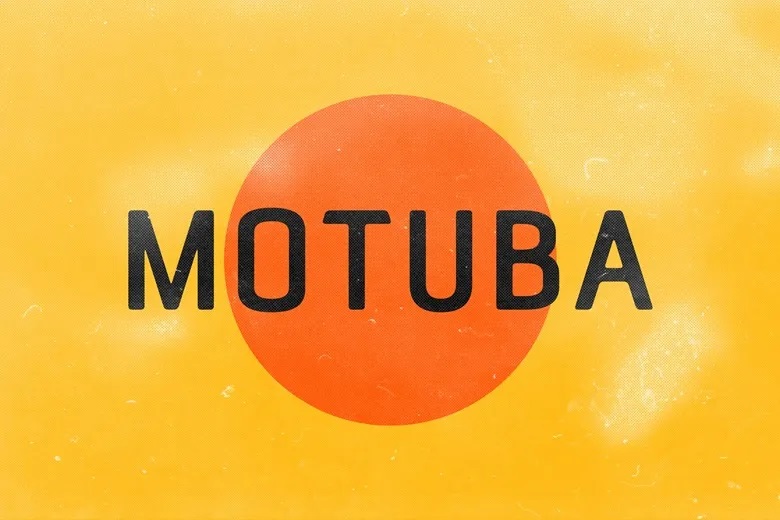
Motuba Font
Motuba is an elegant, nostalgic sans serif typeface that is most suitable as a display for a headline, logotype, branding, magazine, product packaging, invitation etc. Clean lines and smooth curves make any projects classier.
Motuba Sans Serif Font